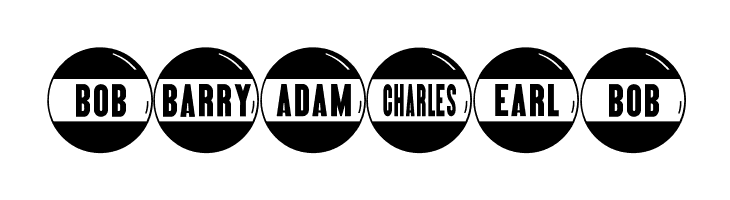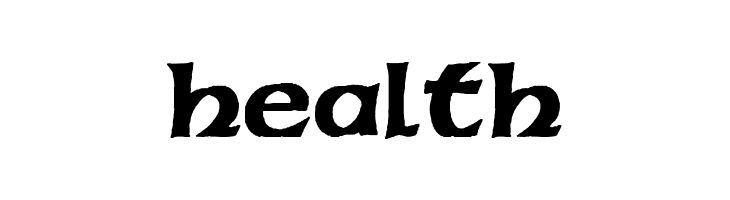
Bold, uppercase sans-serif letters within circular shapes for a vintage button badge look.
A bold, decorative font inspired by street signs, featuring uppercase letters in rectangular frames.
A playful, romantic font with uppercase letters inside heart shapes.
A bold, uppercase font with a clean and modern design.
A decorative font with letters encased in book-like frames, ideal for literary-themed designs.
A whimsical, decorative font with floral-inspired, intertwining uppercase letters.
A Celtic-inspired font with ornate uppercase and bold lowercase letters.
An ornate, decorative font with intricate floral embellishments around uppercase letters.
A bold, uppercase font with a strong, modern presence.